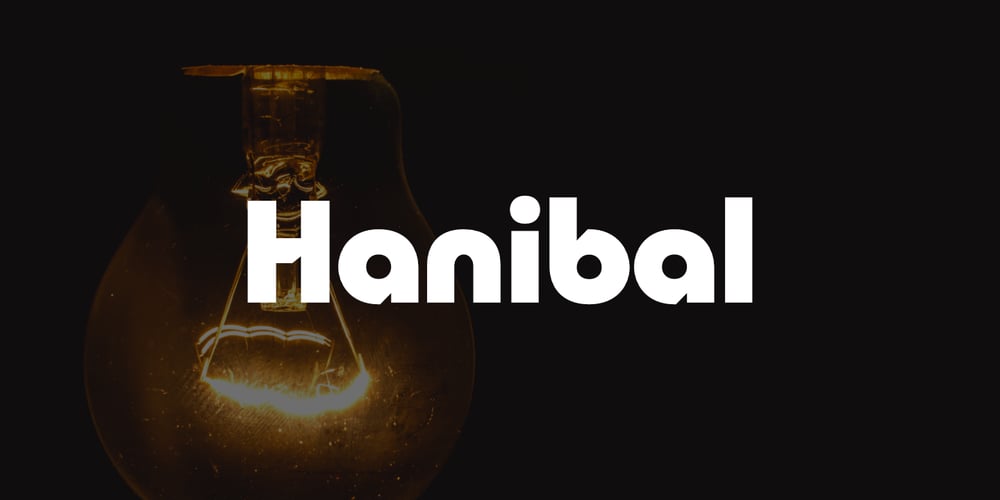
Hanibal Font Family was designed by Muhammad Hastian and published by Hazztype. Hanibal contains 3 styles and family package options. Hanibal is a Bauhaus-inspired display sans serif, simple geometric letter shapes, and low contrast across all styles. Comes in three styles, hanibal is perfectly made to be applied especially in logos, headlines, signage, store front, and any other advertising purpose.